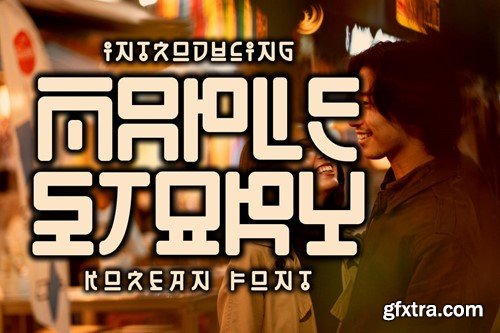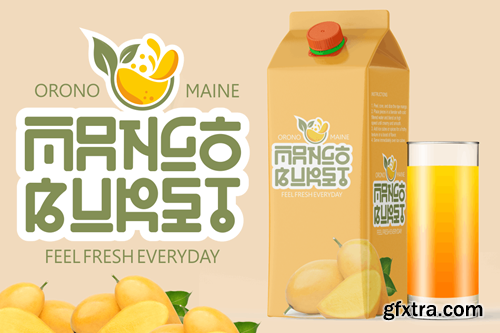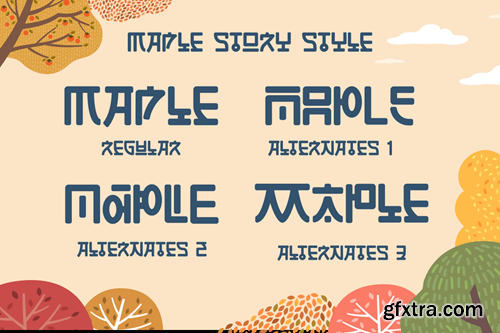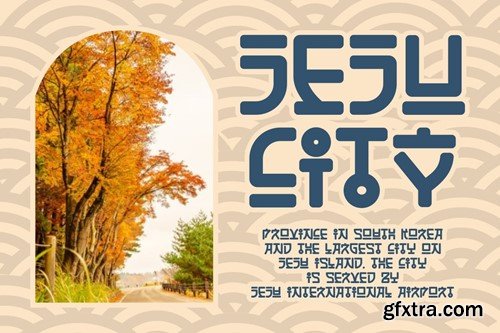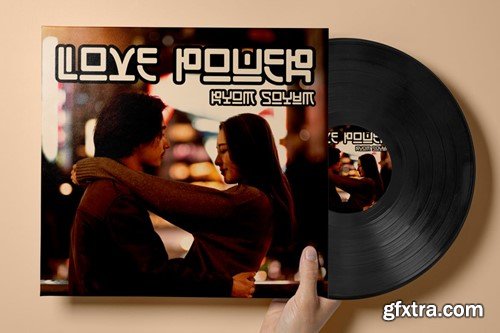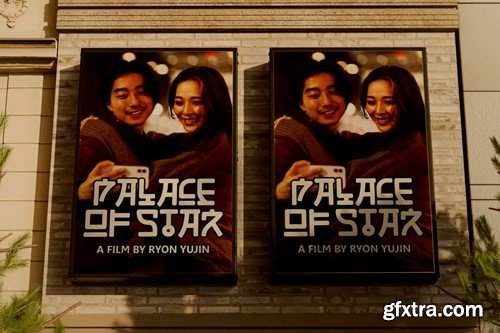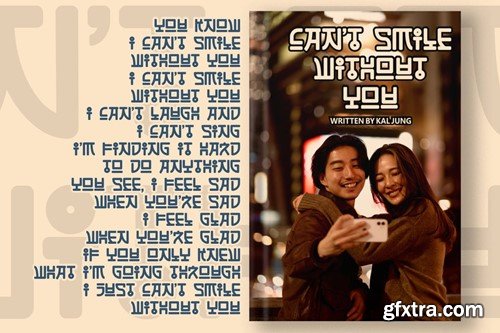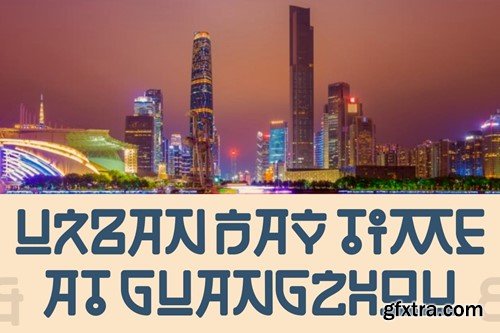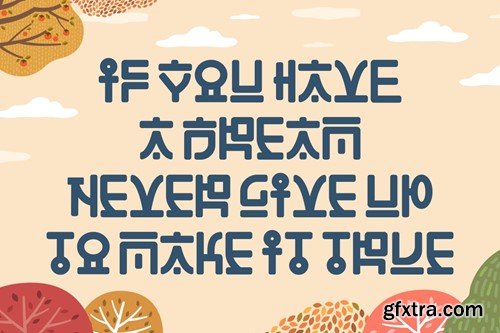
Maple Story - 韩国字体 NTYX63R
Maple Story - Korean Font Maple Story is a Korean style font that captures the charm and elegance of Korea in every stroke. It is a display font that is perfect for adding a touch of whimsy and fun to your designs. Whether you are creating a logo, a branding, a children’s theme, a crafting project, an invitation, a packaging, a poster, a title, a business card, a greeting card, a sticker, a children’s book, a magazine, or any other design that relates to the font’s theme, Maple Story will make it stand out with its quirky and playful characters. Maple Story is not just a single font; it is a font family that offers multiple letter variations that can be used alone or mixed and matched with others. You can customize your design by choosing from different alternates and ligatures that give your text a unique and dynamic look. Maple Story is inspired by the popular culture of drakor and Asian culture, and it reflects the lively and expressive personality of its creators. Maple Story is more than a font; it is a way of expressing yourself with style and flair. In Package : Feature : Note : The preview mock-up, element, shadow, image or graphic stock is not included in the download file. It’s only for presentation purpose. Thank you